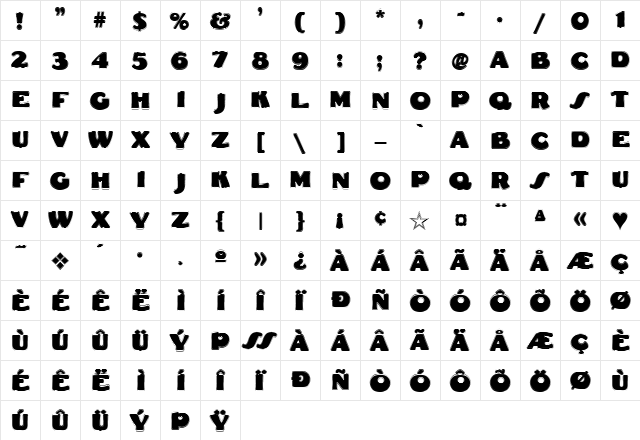
DS Fatty Contour Regular
| Foundry | Typographer Mediengestaltung |
| Designer | Multimedia Mediengestaltung |
Design Context for DS Fatty Contour Typeface
DS Fatty Contour is a composed and adaptable typeface that performs quietly and consistently across a wide range of design contexts.
Pro Tip: Pair DS Fatty Contour with a font of contrasting weight or personality to build a more expressive typographic hierarchy.